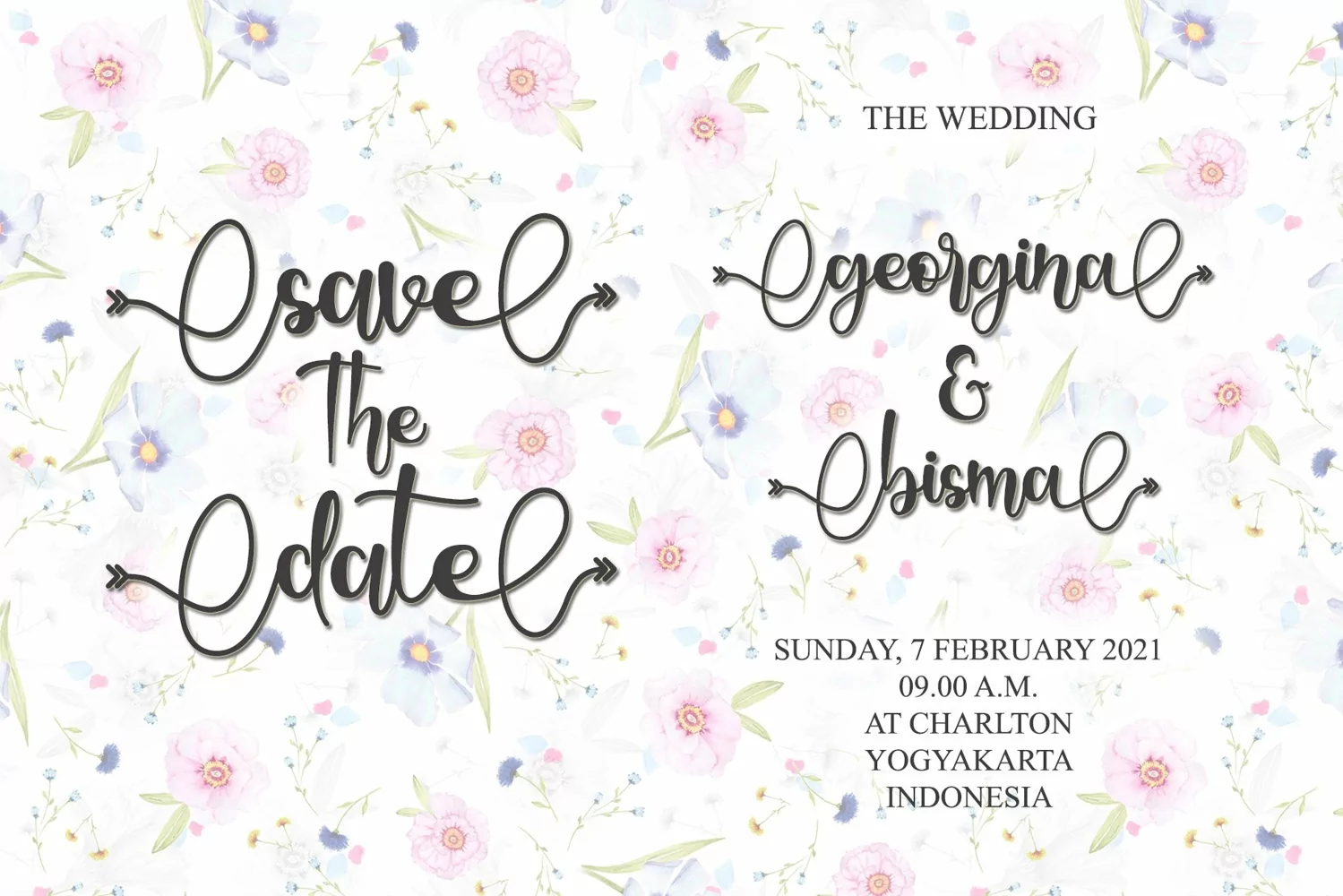
Holidate - A Lovely Font
HOLIDATE
Holidate Font is a modern calligraphy font by Letterafa Studio. It has flowing letters that will give your designs a unique and sweet look with many lovely caracters. Holidate font is perfect; logos, greeting cards, a package design, a brand identity, craft design, any DIY project, book title, wedding invitation, packaging, and more.
- Basic Uppercase and Lowercase
- Lowercase Alternate (a-z) and Swash (a-z)
- Ligature
- Titling Lovely (a-z)
- Number and Punctuation